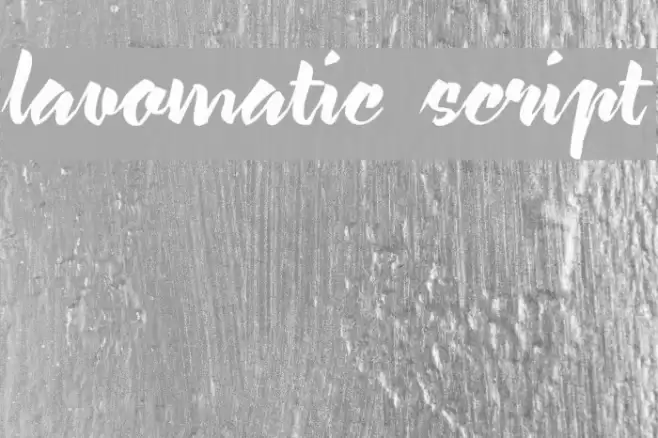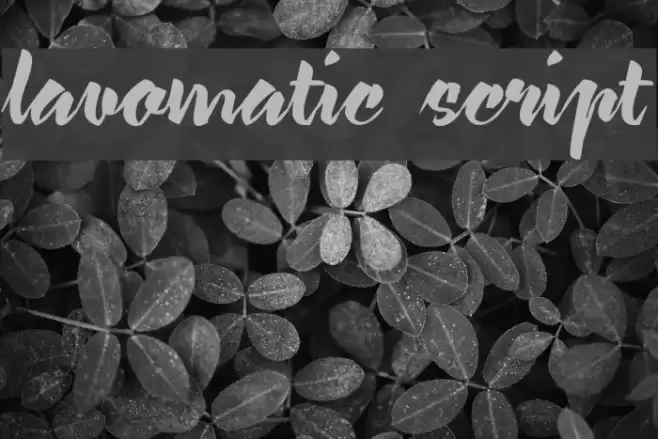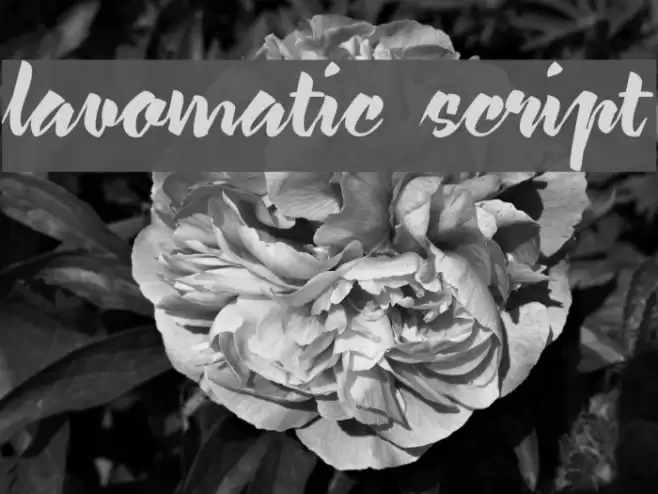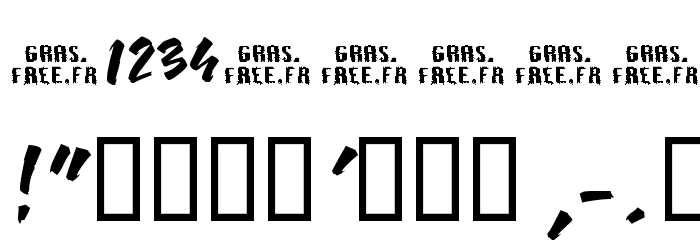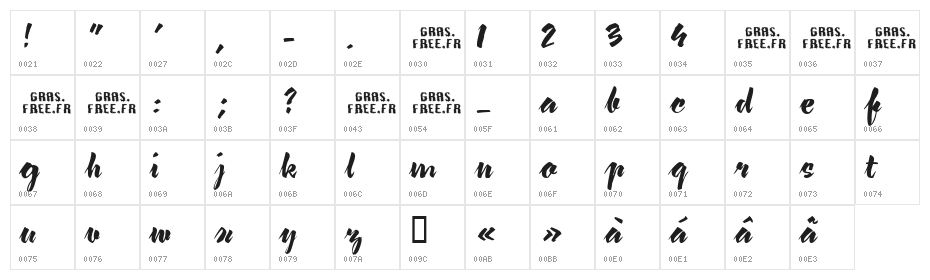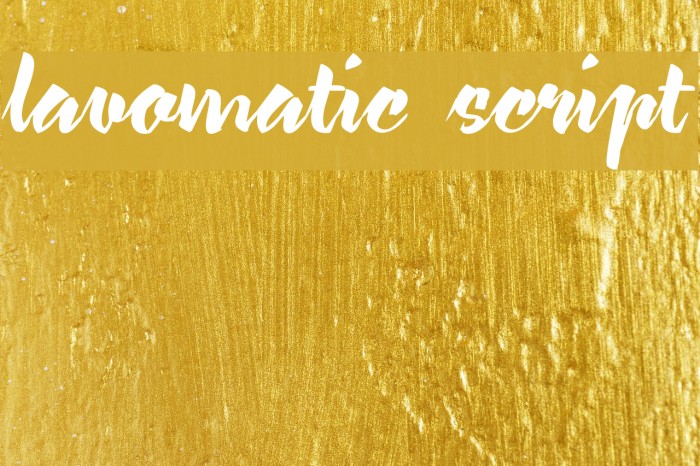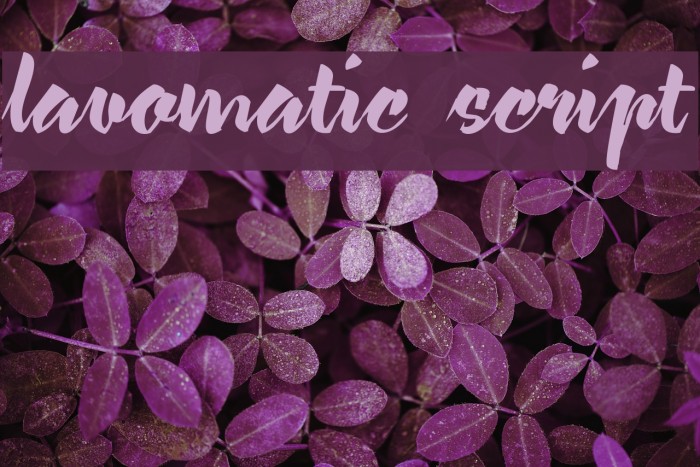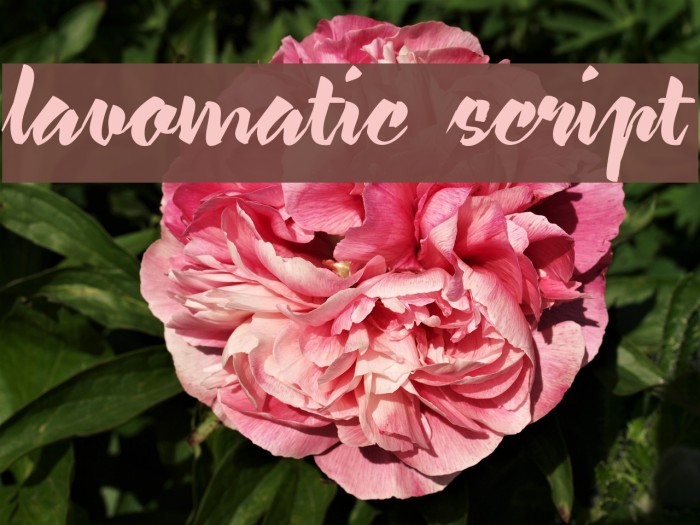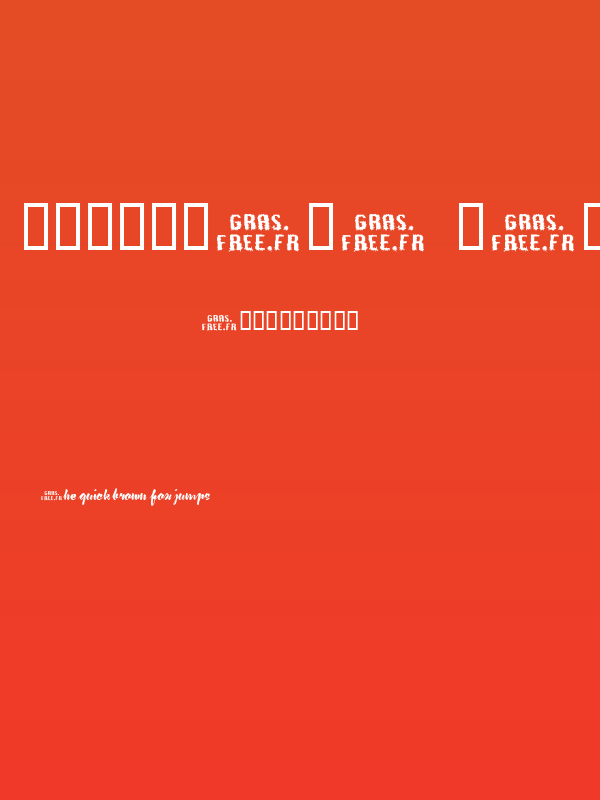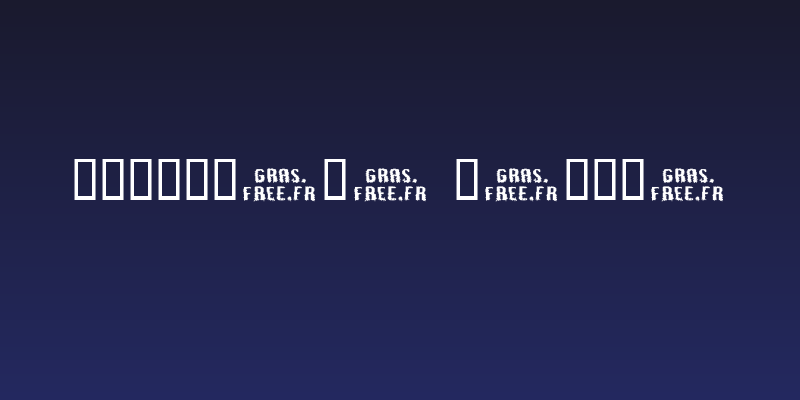
lavomatic script Font
lavomatic script Description
This script font exudes a lively and dynamic character, with its bold and flowing strokes that mimic the fluidity of handwriting. The letters are interconnected, creating a seamless and continuous look that is both elegant and casual. The font's thick, sweeping curves and loops give it a sense of movement and energy, making it ideal for projects that require a personal touch. Its playful yet sophisticated style is perfect for invitations, greeting cards, and branding materials that aim to convey warmth and approachability.
A bold, flowing script font with a lively and dynamic character from Images & Symbols fonts.
- Character Spacing: Tight